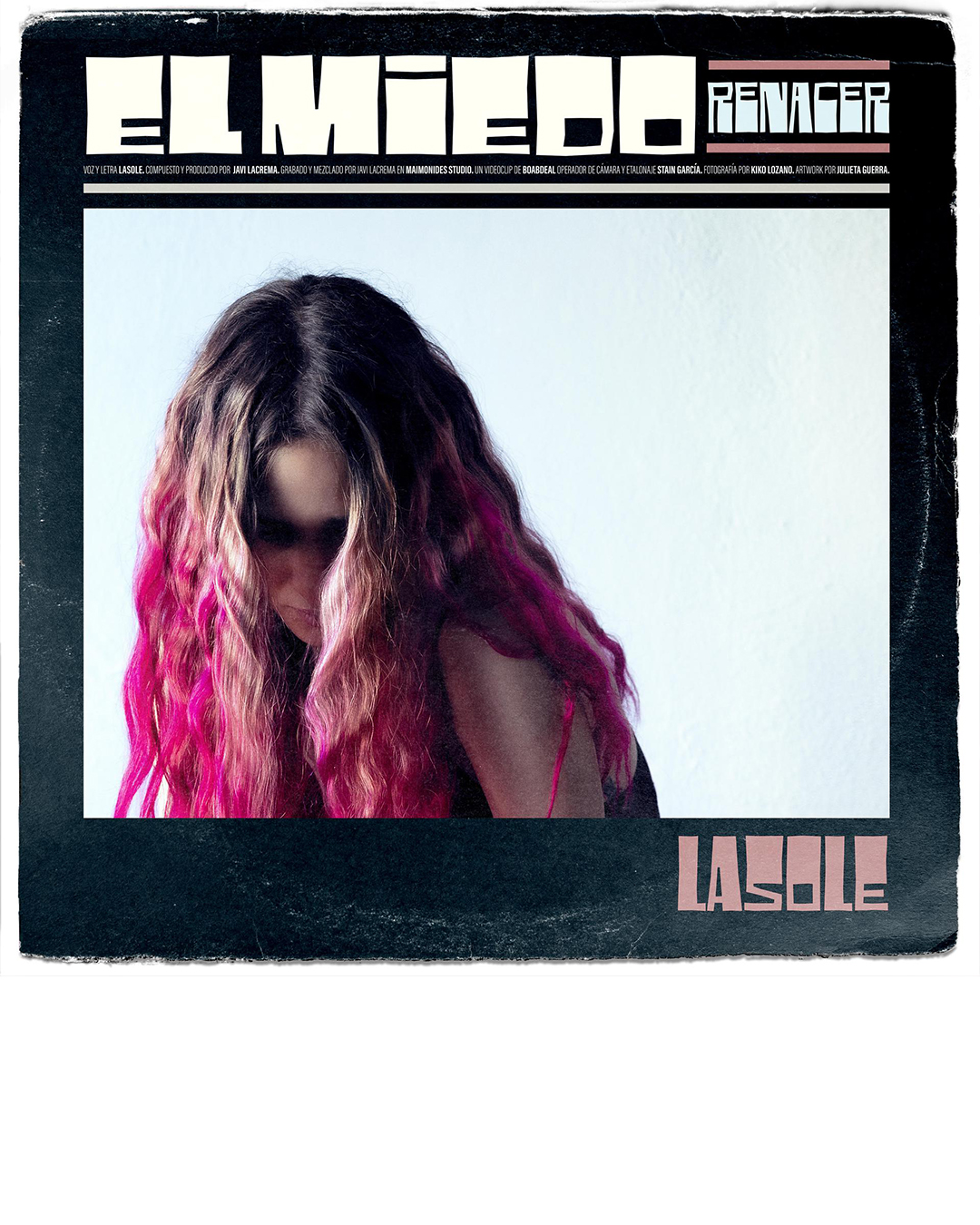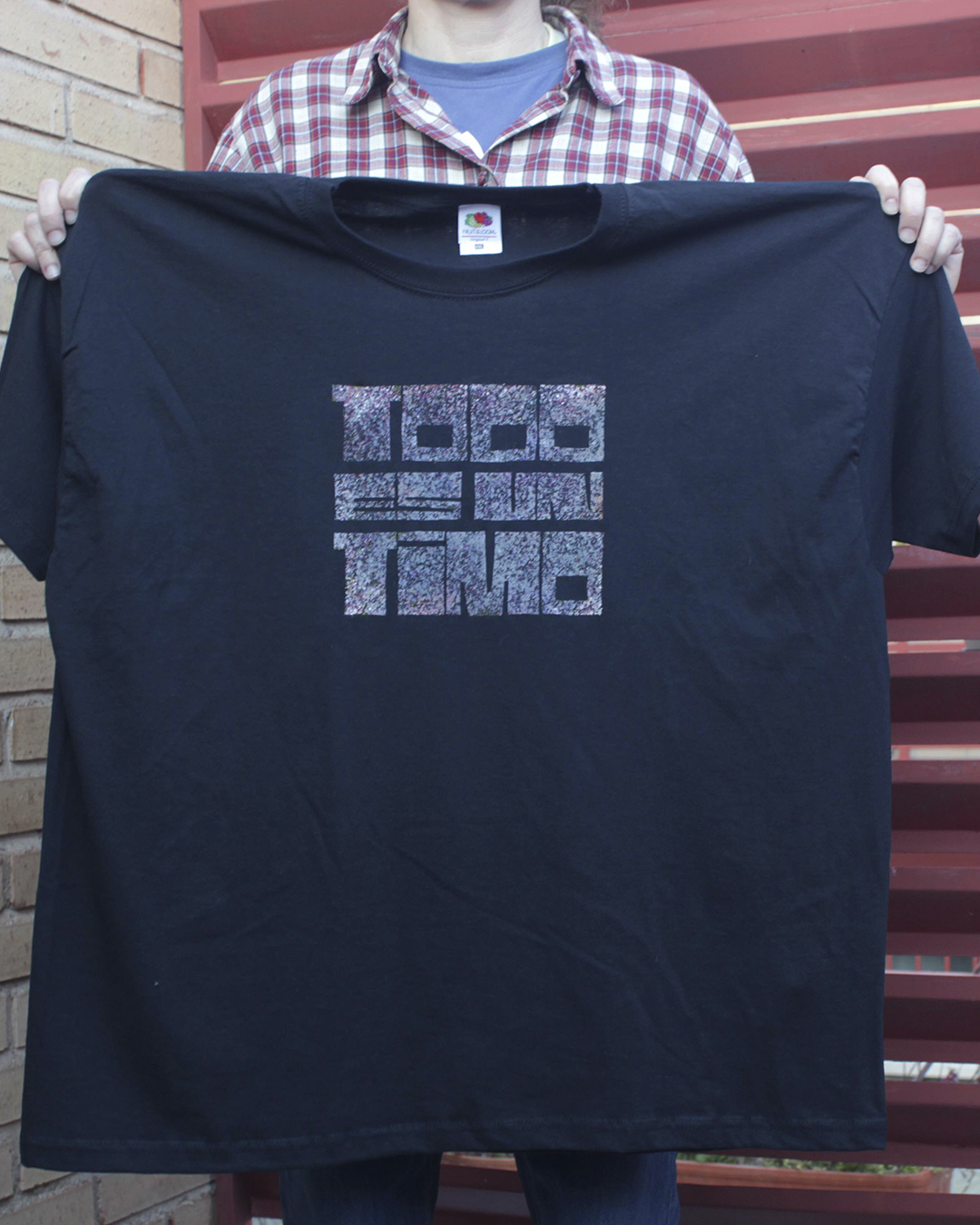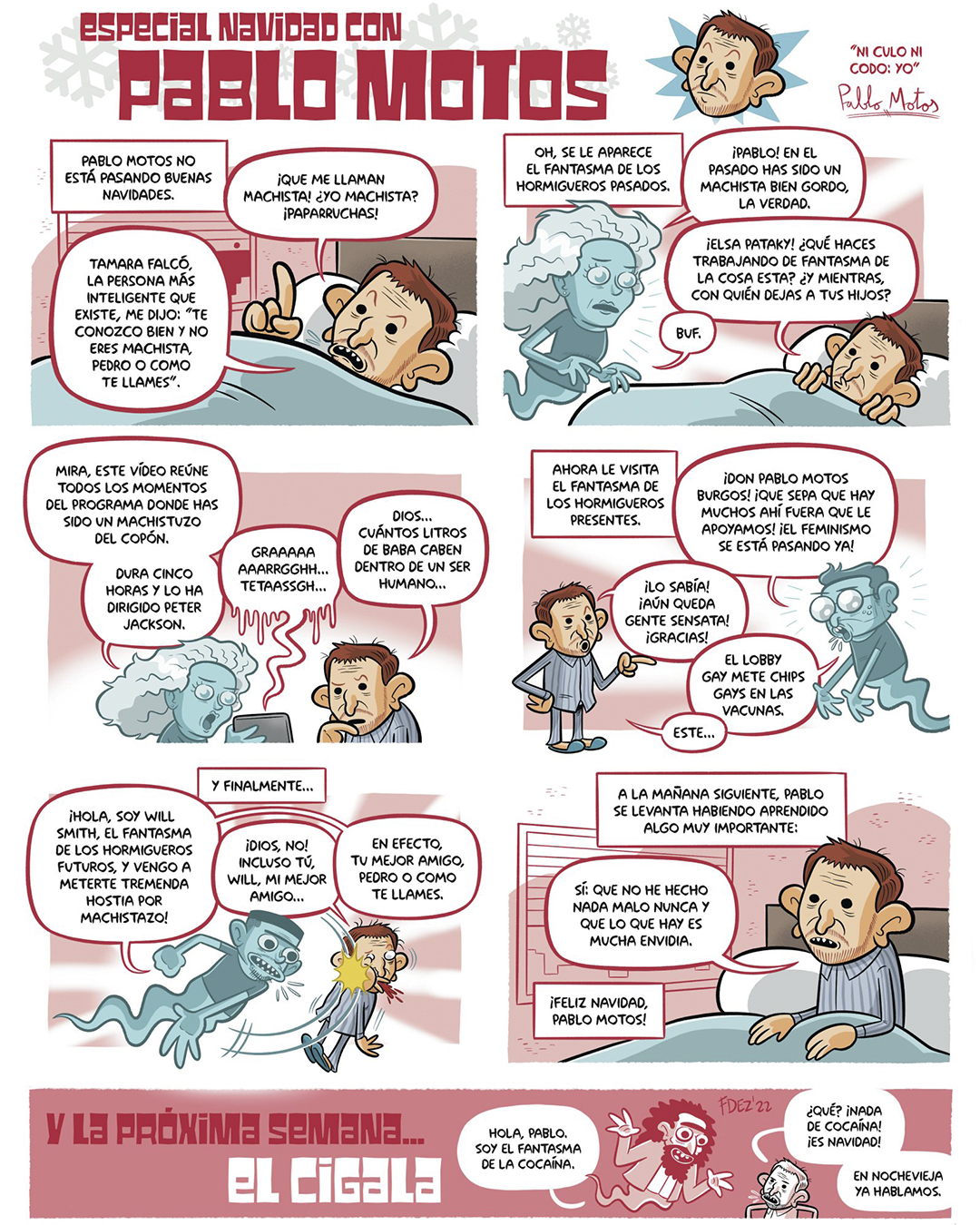
Black Pack
Loosely inspired by the odd bold plastic shops signs from the 60s and 70s, Black Pack is powerful and beautiful, a block display font that fits everywhere due to its wide range of weights and widths.
The Black Pack started as a very, very, simple group of letters without curves to practice transforming them with Python scripting, but quite soon I give up the programming idea (I’m terrible at coding) and started to enjoy drawing more and more widths and styles. The aim was to develop a really bold font in many widths to fit easily any copy in any layout.
At the same time as I was drawing, the Variable Fonts appeared, which adapted perfectly to what I wanted to achieve. So at the same time as the static version, the test VF version appeared in 2016. And in its new version of 2025, with the variable technology more mature, it is the only version available.